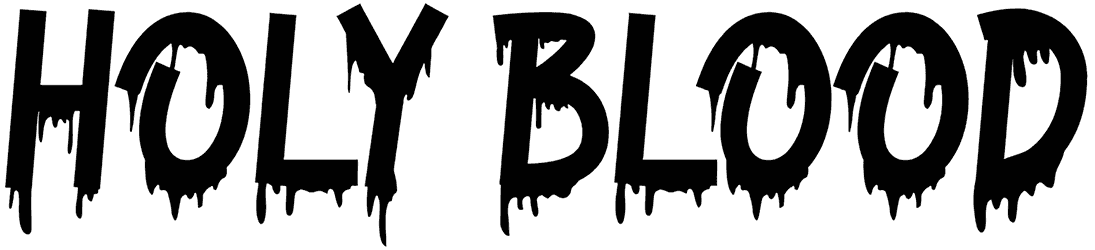
Holy Blood Font
Holy Blood is a well-designed dripping font that gives you an exciting experience. This horror font has a scary theme and immediately grabs your attention. You may use the Holy Blood for various cases, such as posters, movie titles, and prints on T-shirts. Moreover, this bloody font’s letters are bold with sharp edges, creating a frightening feeling. So download it now to impact your audience.